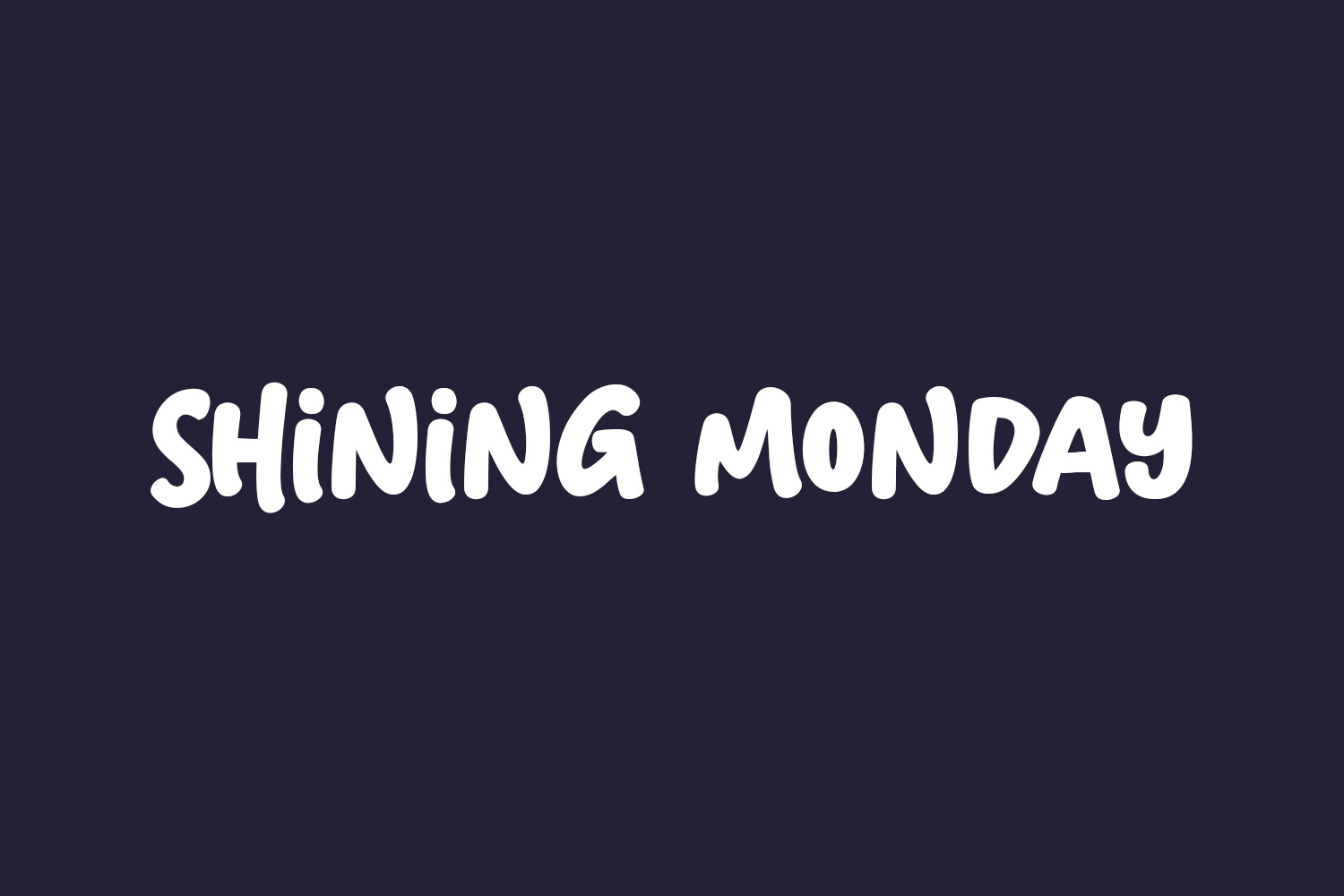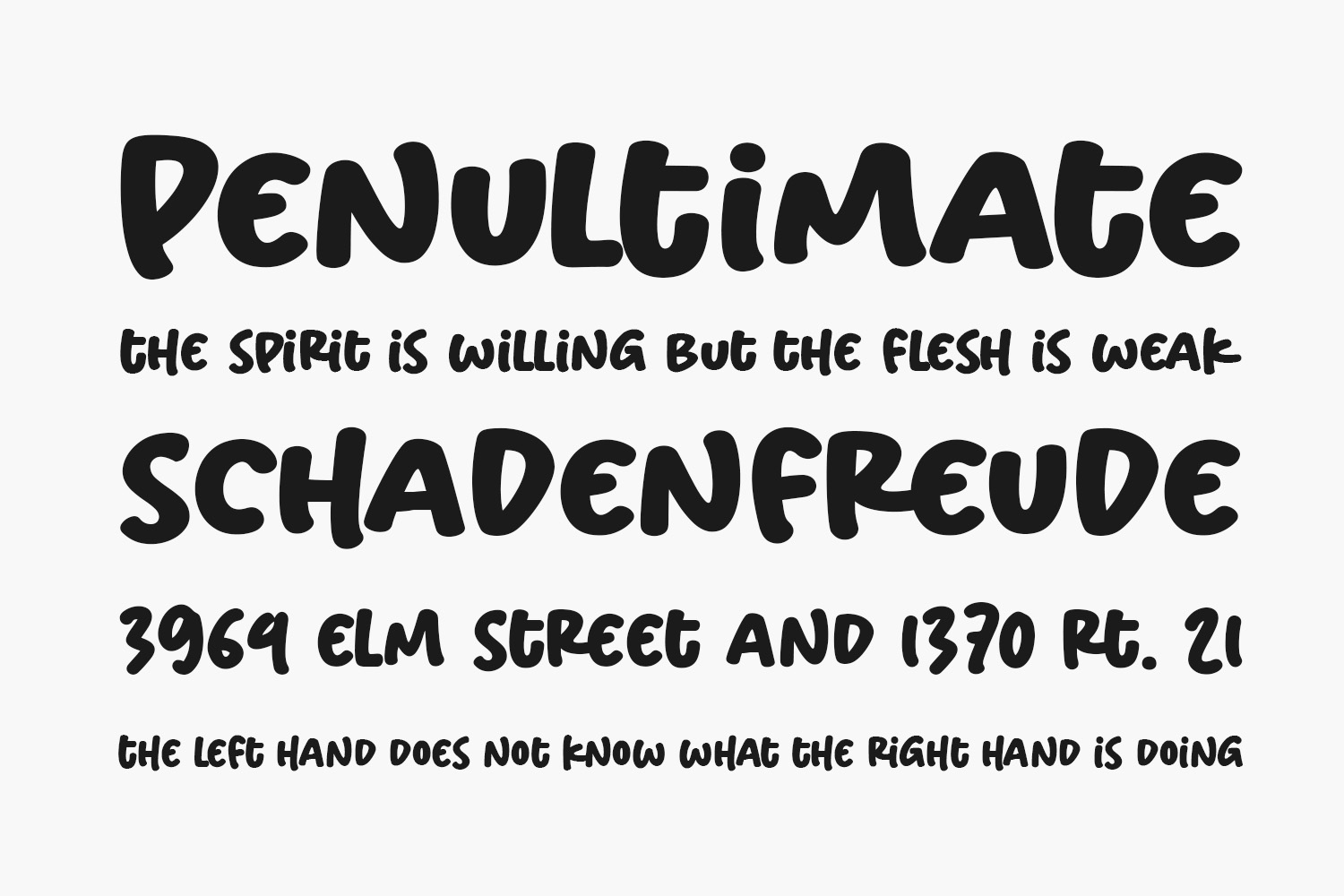
Shining Monday Free Font is a chubby and fun paint-brushed display font. It embodies playfulness and authenticity and is the perfect choice for any children’s activity or school project. Shining Monday Free Font was designed by Subectype & Orenari and is free for personal use only. Please purchase the full version for commercial use.